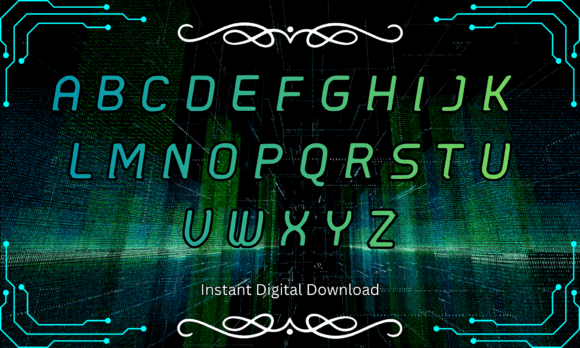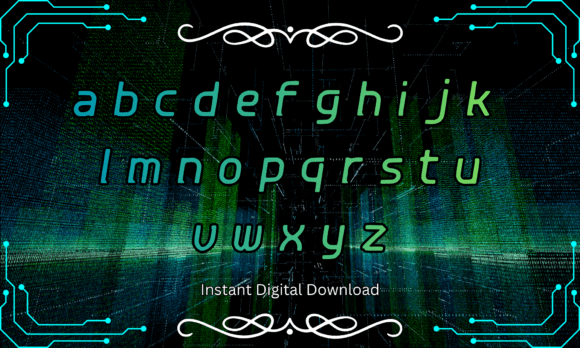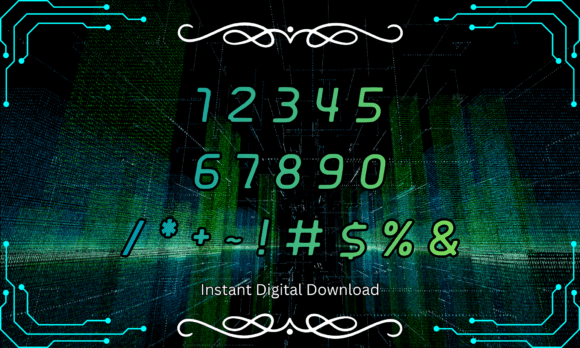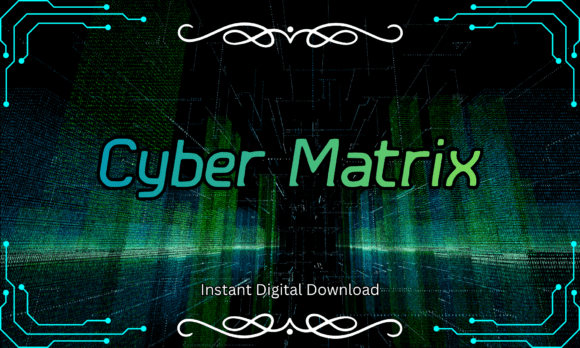
Introduction to Cyber Matrix Font
Enter the grid with Cyber Matrix Font 💻⚡ A sleek, futuristic typeface inspired by digital worlds, neon systems, and cyberpunk aesthetics.
With its clean tech lines and glowing sci-fi energy, this font feels like it was pulled straight out of a digital universe Perfect for creators who want something modern, sharp, and playfully futuristic.